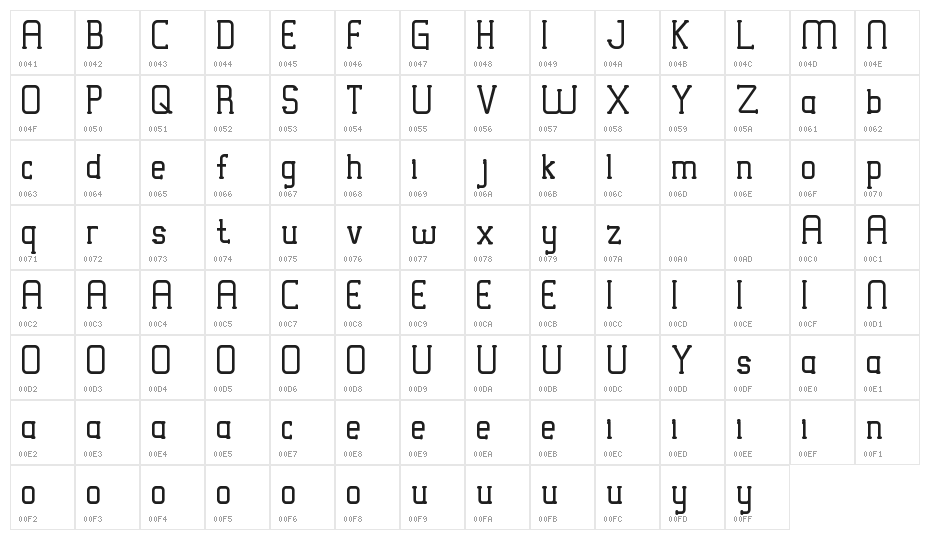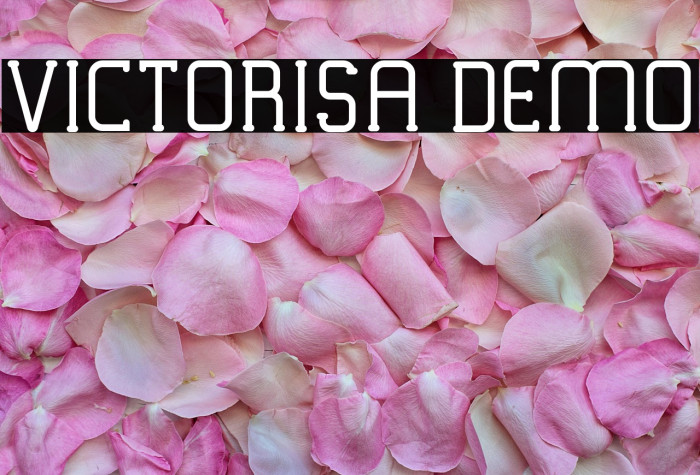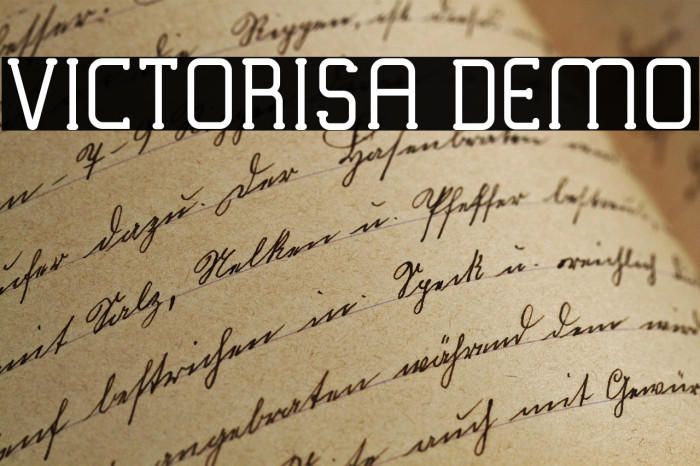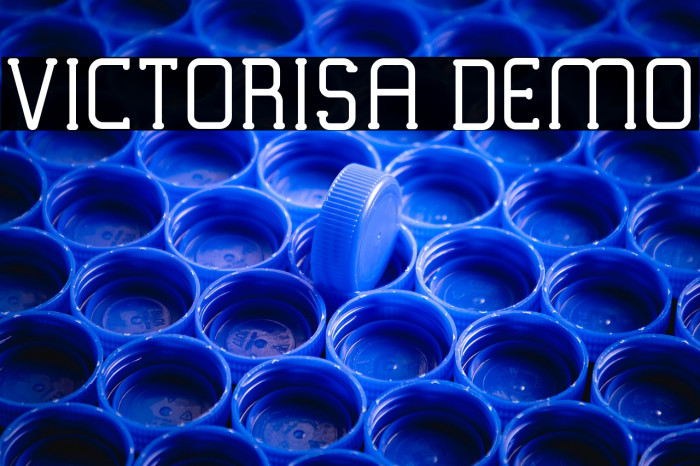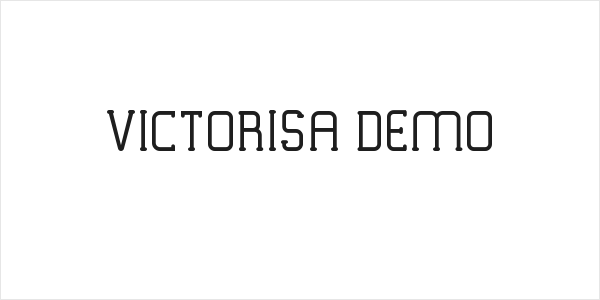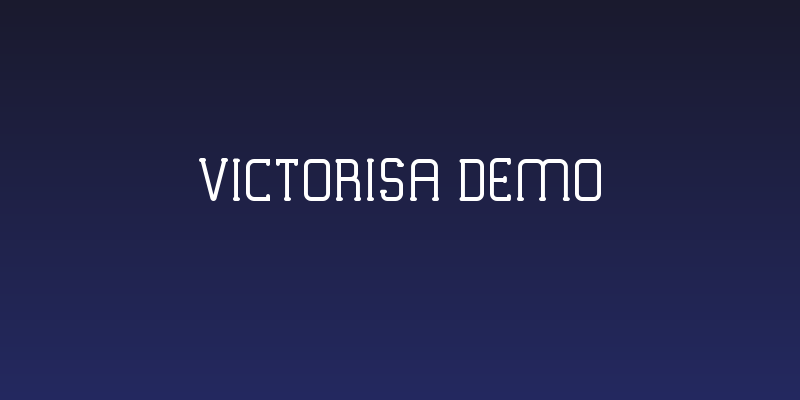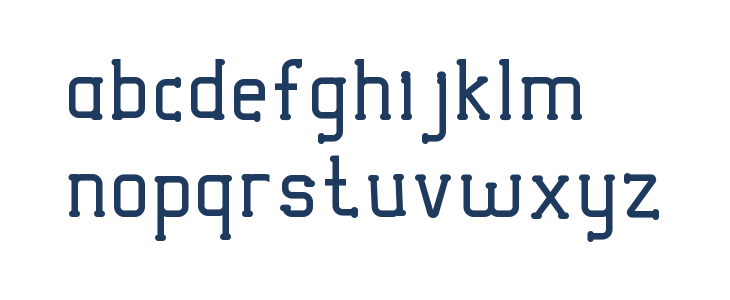
VICTORISA DEMO Font
VICTORISA DEMO Description
This font features a unique blend of modern and vintage styles, characterized by its rounded corners and monospaced design. The letters have a consistent stroke width, giving it a uniform appearance. The uppercase and lowercase letters maintain a similar height, enhancing readability and creating a cohesive look. The font's geometric shapes and clean lines make it suitable for a variety of design projects. Its distinct style is both functional and aesthetically pleasing, making it a versatile choice for designers looking to add a touch of sophistication to their work.
| Proposed Projects | Ideal for branding, web design, and editorial projects where a modern yet vintage feel is desired. |